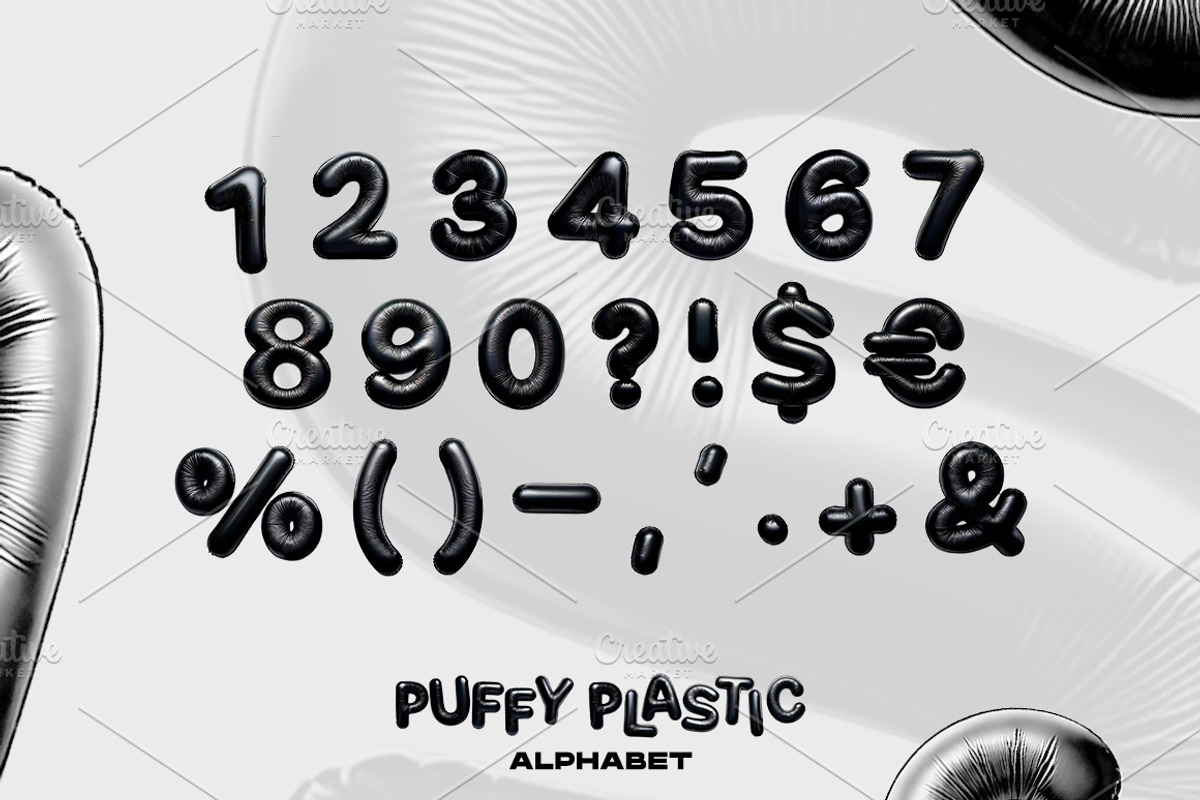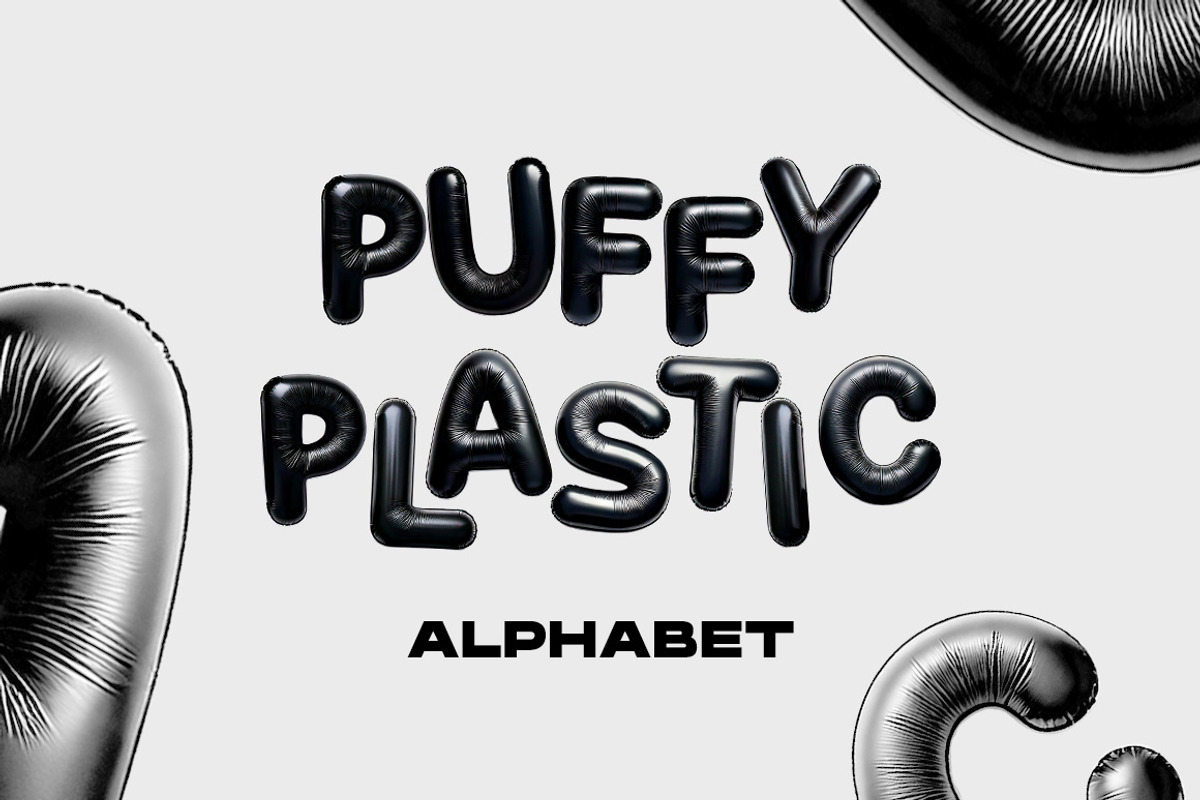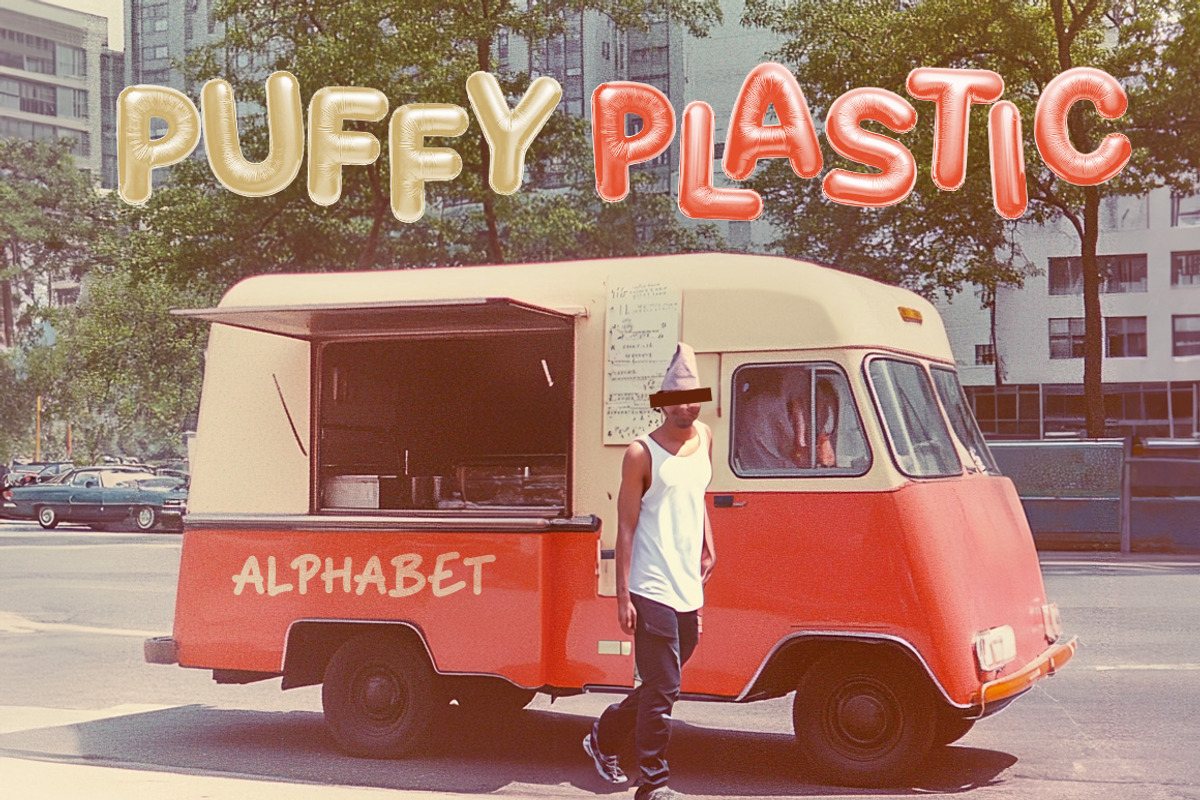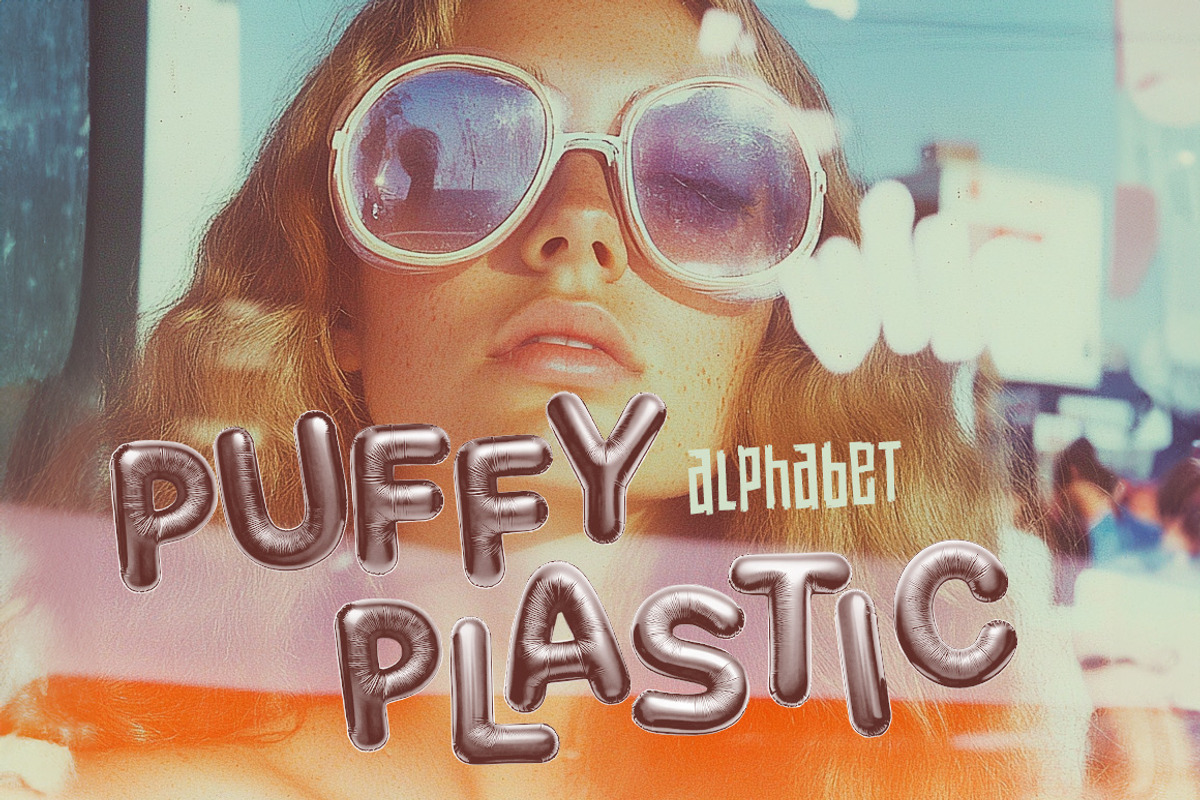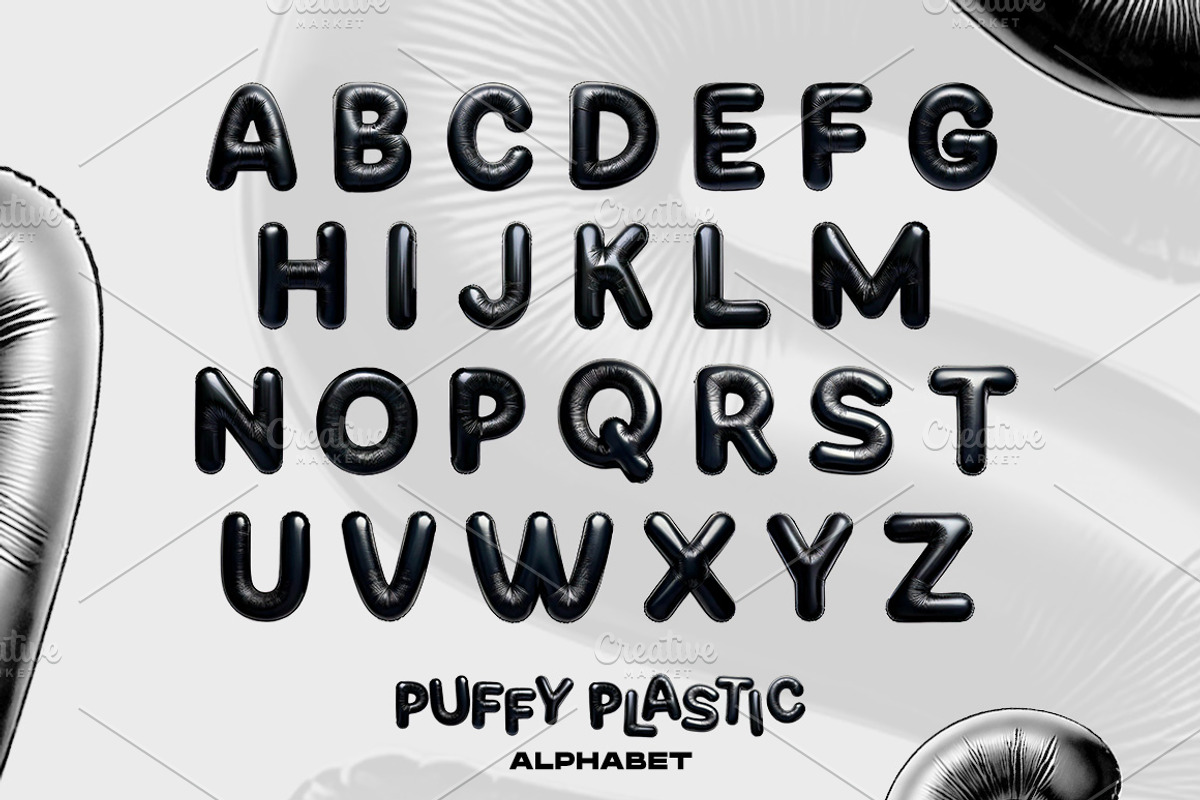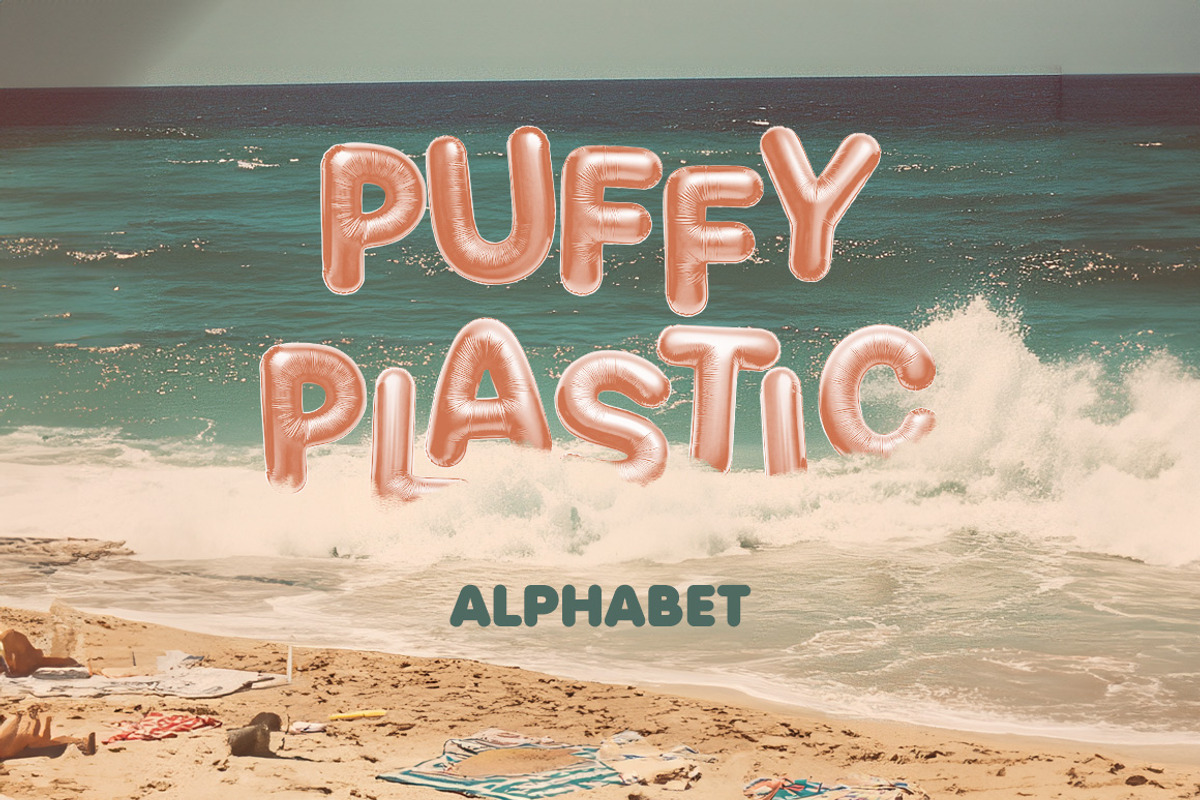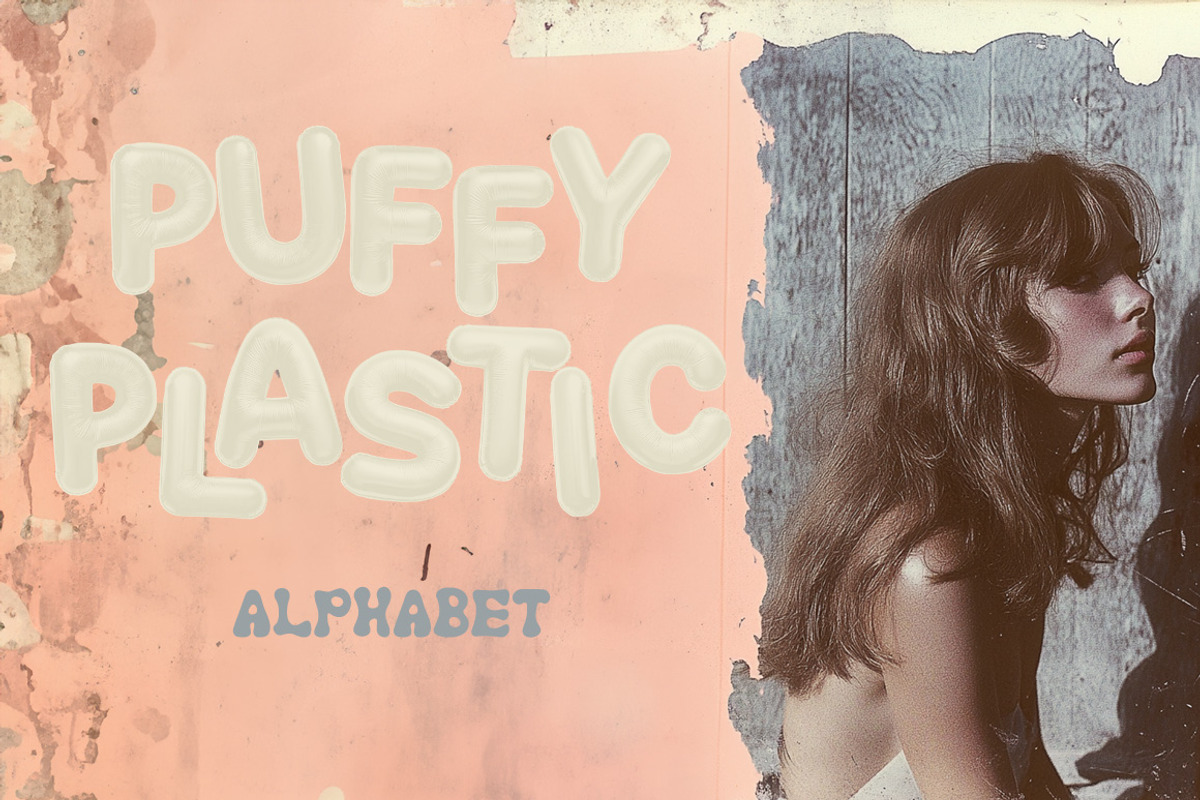
Puffy Plastic alphabet font
Puffy Plastic alphabet font A font made in a blown plastic style. It can be used not only in black, but also in pastel colors.